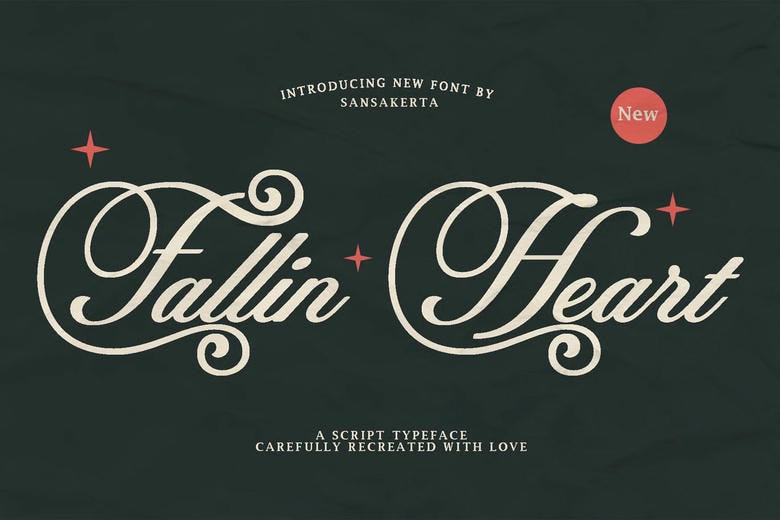
Fallin Hearth Font
Fallin Hearth is a high-quality calligraphy Script font created by Sansakerta. You can download it for free and use it for personal projects. This font works well for books, magazines, logos, branding, photography, quotes, blog headers, posters, and advertisements.
Fallin Hearth Script Font